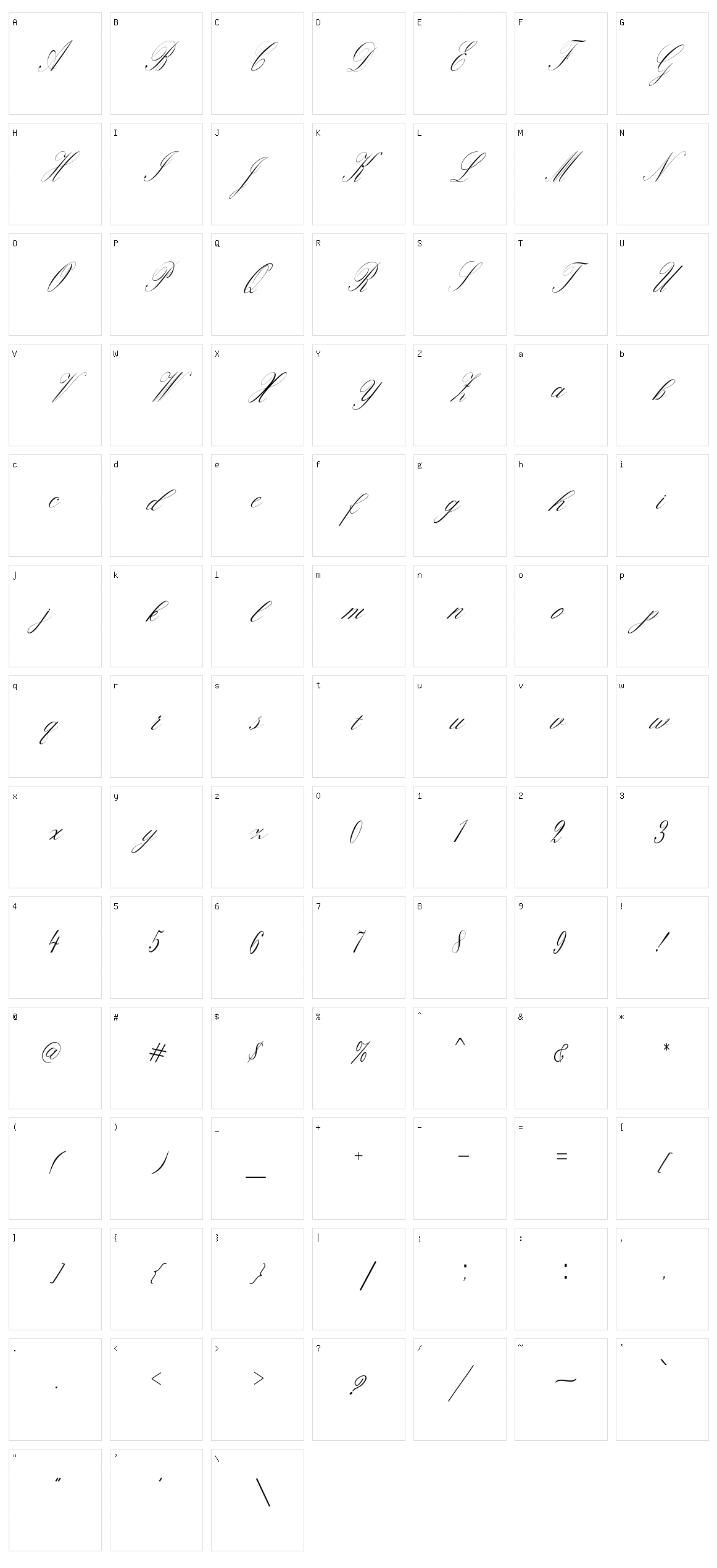
The free font Bridget is carefully designed by Serdaribut Studio, showcasing a thoughtful balance of creativity and usability and falls under the Script font style. When you download the ZIP file, it contains only 34.24 KB of font files, making it lightweight and quick to download. Please review the license details below to understand permitted usage and distribution rights. If license information is not available, we recommend using this font for personal projects only or contacting the author directly for commercial usage permissions.